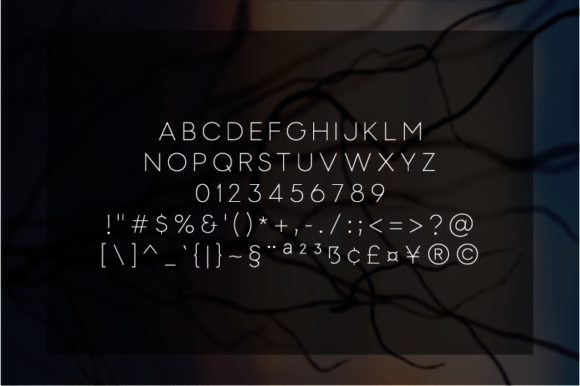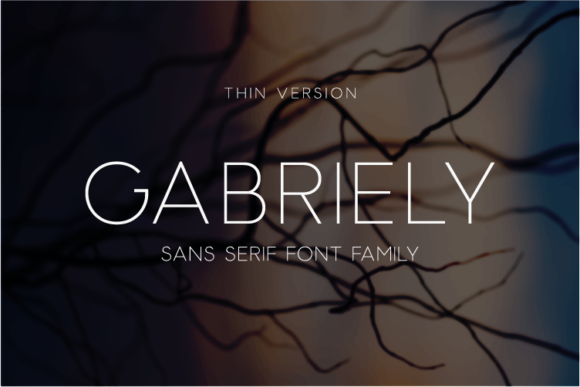
Introducing Gabriely Thin Font: A Modern Sans Serif Typeface
Are you a designer or crafter looking for a clean and modern font to elevate your projects? Look no further than Gabriely Thin Font, a beautifully designed sans serif typeface that is sure to give your work a simplistic and timeless look.
What is Gabriely Thin Font?
Gabriely Thin Font is a part of the Gabriely font family, which is a clean, modern sans serif typeface that has been passionately designed with great attention to detail. The font is characterized by its sleek and minimalist design, making it perfect for a wide range of projects, from digital designs to print materials.
Key Features of Gabriely Thin Font
• Clean and Modern Design: Gabriely Thin Font features a clean and modern design that is perfect for designers and crafters who want to give their projects a fresh and contemporary look.
• Attention to Detail: The font has been designed with great attention to detail, ensuring that every letter and character is perfectly crafted to provide a seamless reading experience.
• Sans Serif Typeface: Gabriely Thin Font is a sans serif typeface, which means that it doesn’t have any decorative flourishes or lines at the ends of the letters.
• Essential Font: Gabriely Thin Font is an essential font that every designer and crafter should have in their collection. It’s a versatile font that can be used for a wide range of projects.
Benefits of Using Gabriely Thin Font
So, why should you use Gabriely Thin Font in your projects? Here are just a few benefits of using this amazing font:
• Simplistic and Timeless Look: Gabriely Thin Font gives any project a simplistic and timeless look that is sure to impress. The font’s clean and modern design ensures that your work will look fresh and contemporary for years to come.
• Versatility: Gabriely Thin Font is a versatile font that can be used for a wide range of projects, from digital designs to print materials. It’s perfect for use in logos, headings, and body text.
Who Can Benefit from Gabriely Thin Font?
Gabriely Thin Font is perfect for a wide range of designers and crafters, including:
• Graphic Designers: Graphic designers can use Gabriely Thin Font in a wide range of projects, from logos and branding to digital designs and print materials.
• Web Designers: Web designers can use Gabriely Thin Font to create clean and modern websites that are sure to impress.
• Crafters: Crafters can use Gabriely Thin Font to create beautiful and unique crafts, such as handmade cards and gift tags.
• Small Business Owners: Small business owners can use Gabriely Thin Font to create professional-looking marketing materials, such as brochures and flyers.
In conclusion, Gabriely Thin Font is a clean and modern sans serif typeface that is perfect for designers and crafters who want to give their projects a simplistic and timeless look. With its attention to detail, versatility, and ease of use, Gabriely Thin Font is an essential font that every designer and crafter should have in their collection.